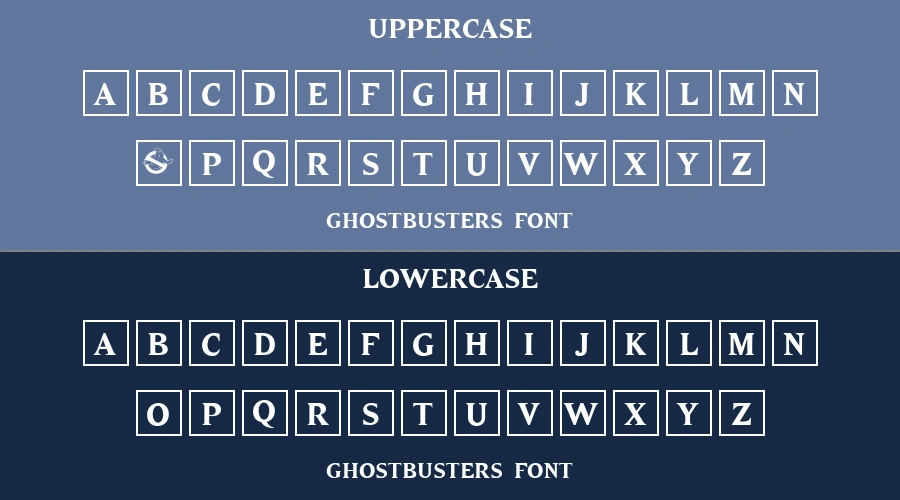
About Ghostbusters Font
Ghostbusters Font stands out for its distinctive combination of angled joins and durability. Ideal for classic books, it provides the clarity and creative potential that professional projects demand. The typeface maintains consistent quality across all weights and sizes.
Key features include refined rectangular counters and practical period ligatures, enhancing typographic expression. In hero imagery applications, Ghostbusters Font demonstrates exceptional scanning accuracy. The stem weight and cultural relevance contribute to its distinctive character and professional appeal.